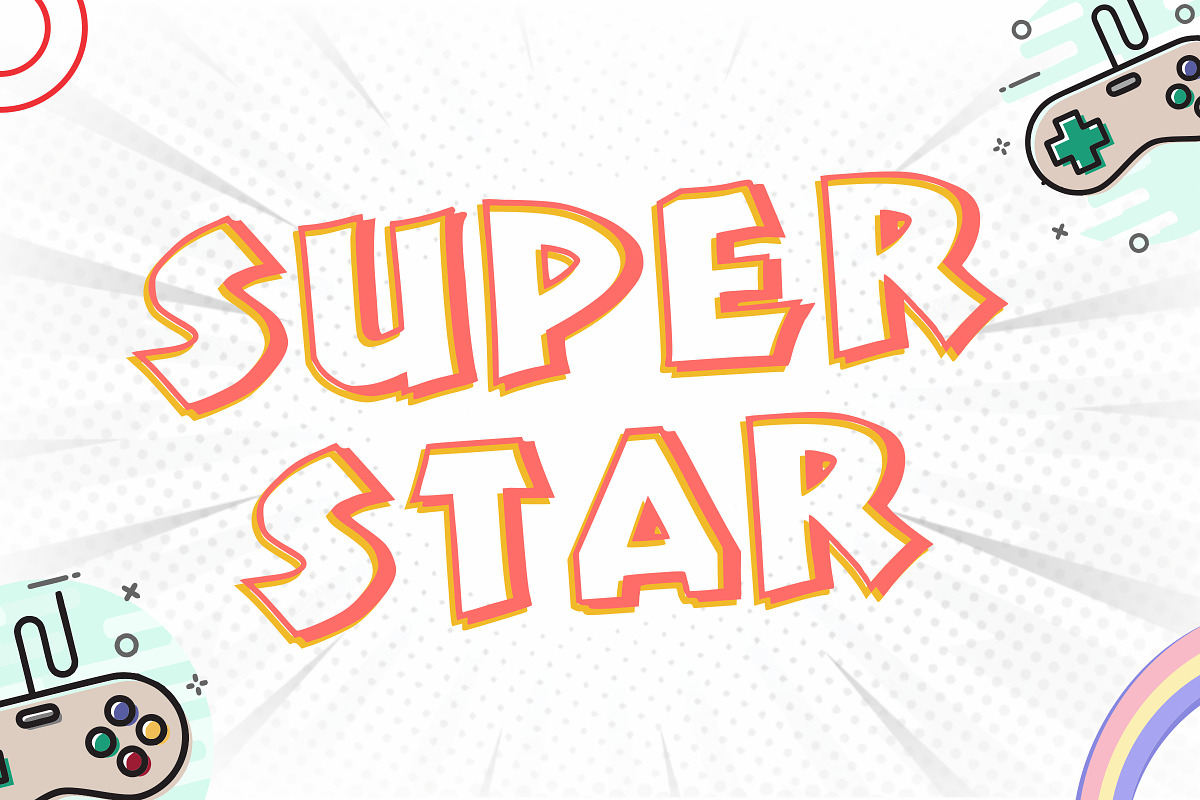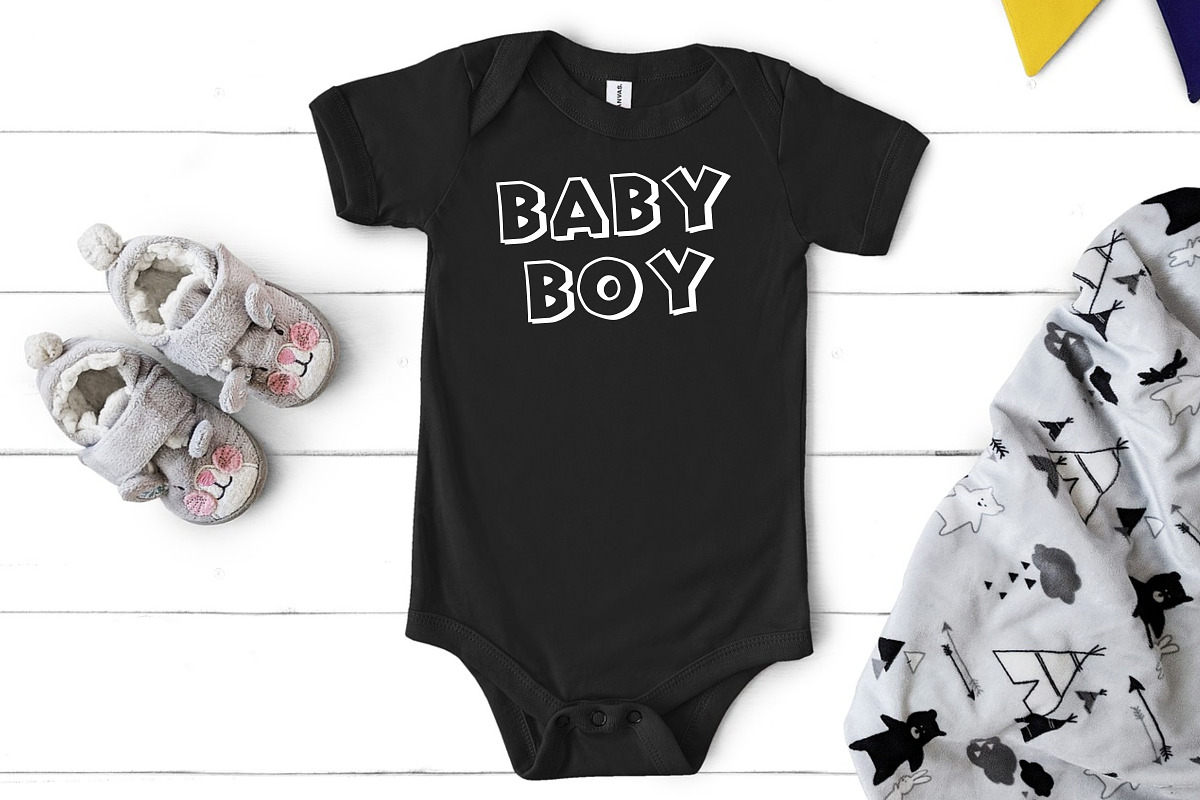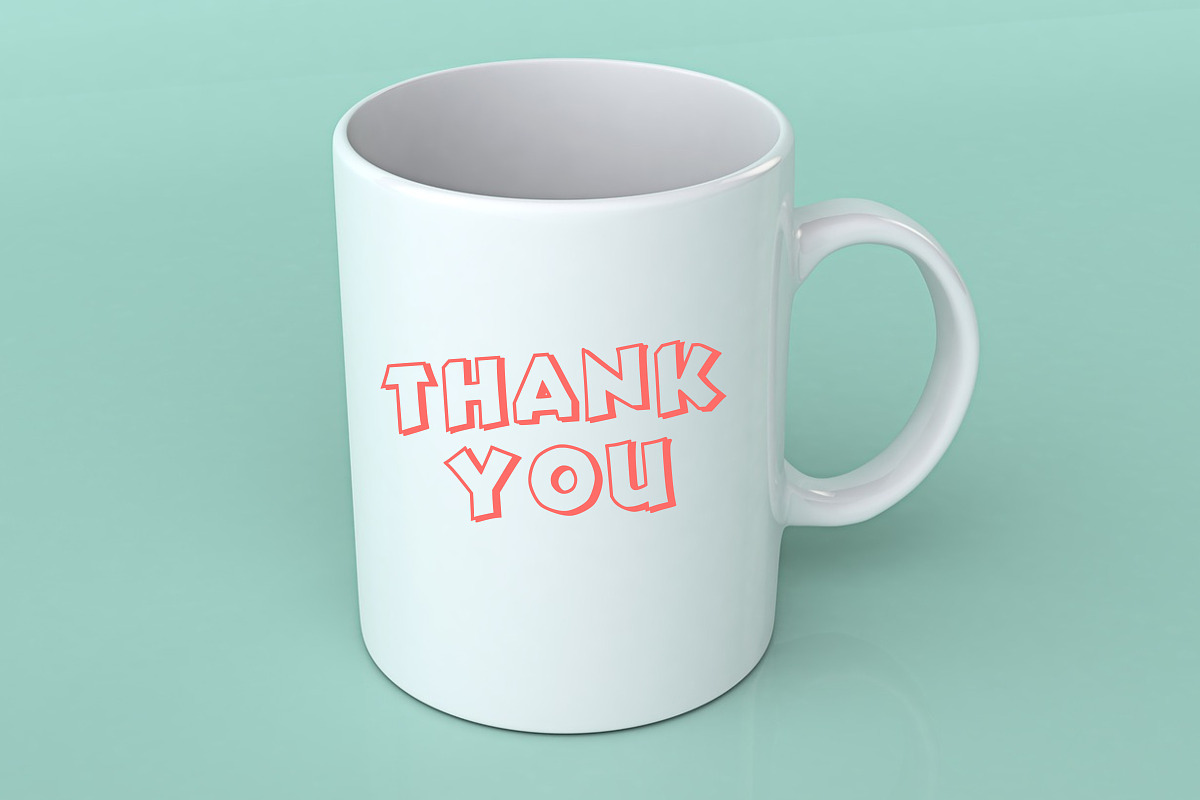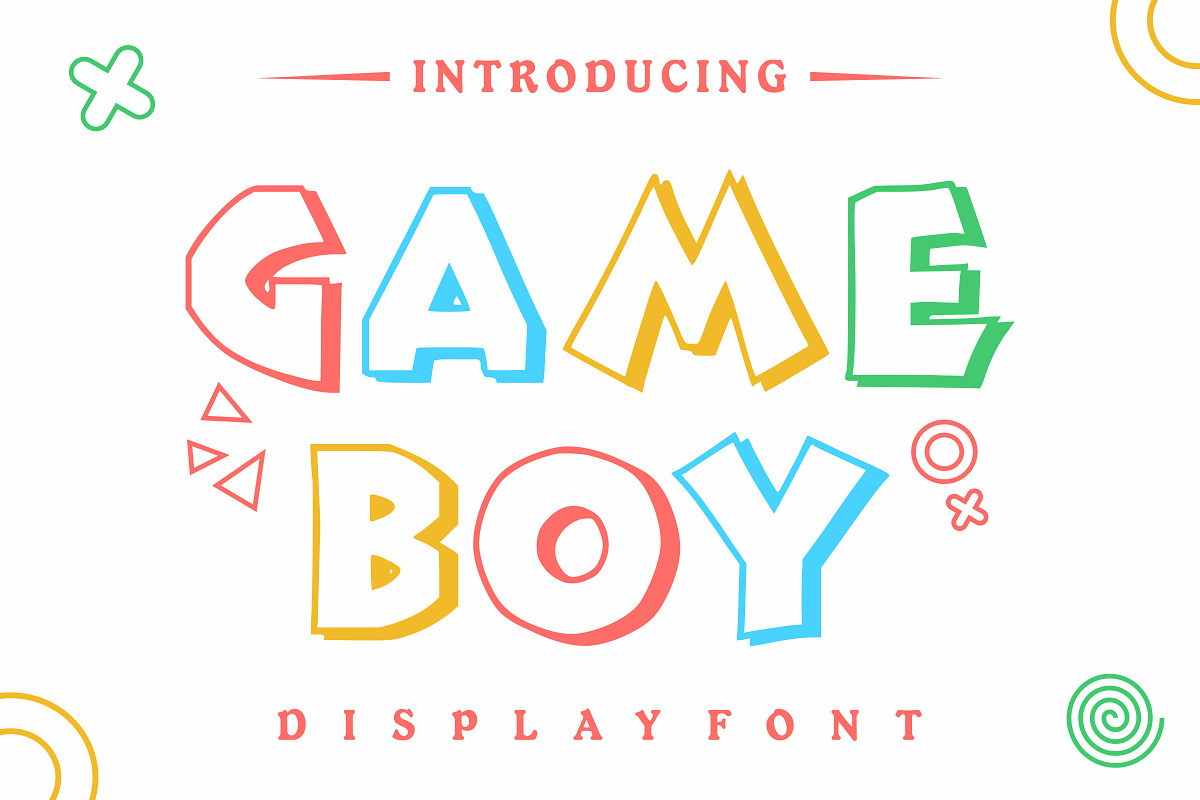
Game Boy
Game Boy is a outline font, fun and unique all-caps display font. Whether you’re using it for designs related to game systems, cartoons, children’s games, or just any creation that needs a fancy touch, this font will be an excellent choice.